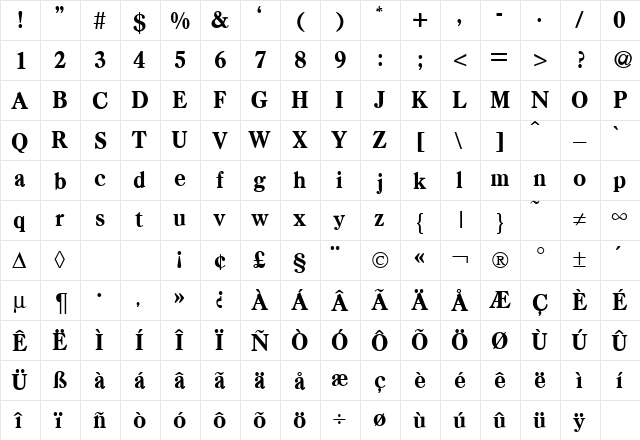
CasAdbold Bold
Design Context for CasAdbold Typeface
CasAdbold takes a measured approach to typography — its balanced proportions and neutral character make it a reliable workhorse for both digital and print work. The heavy weight commands attention and anchors typographic hierarchies.